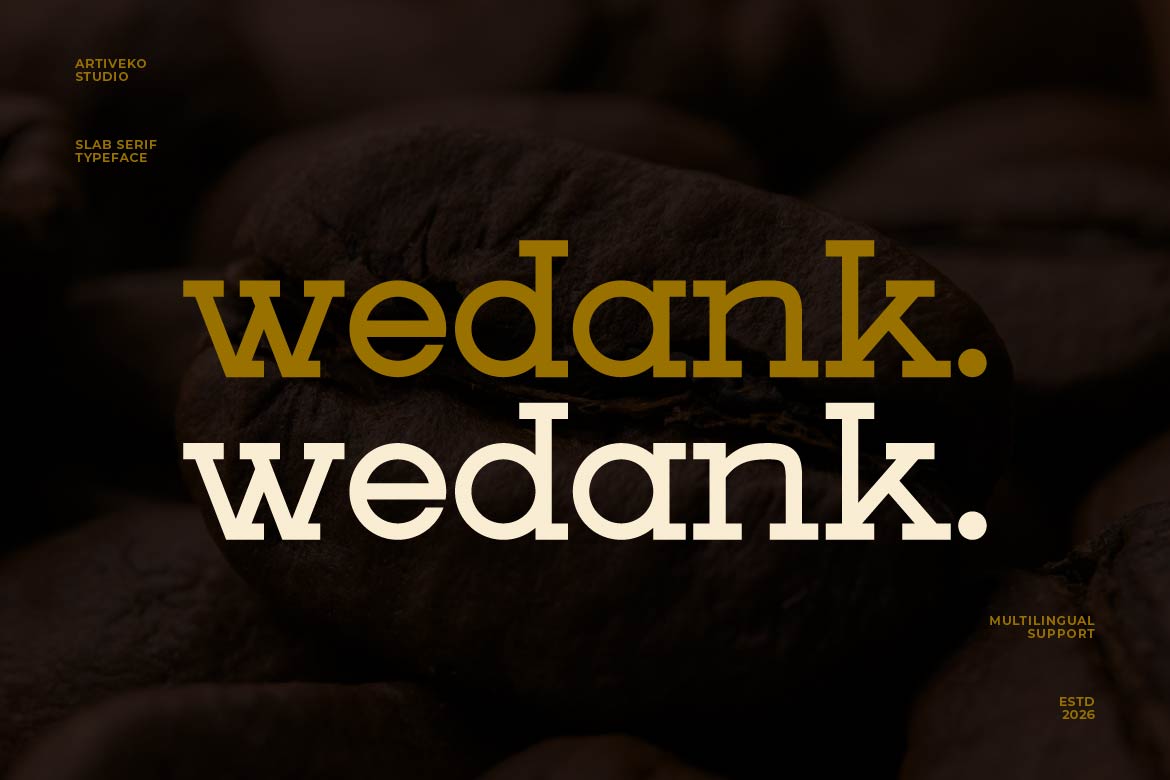
- Wedank – Contemporary Slab Font for Bold & Elegant Projects
Wedank is a premium slab serif typeface that blends strength with refined elegance. Featuring solid slab serifs, balanced proportions, and carefully crafted letterforms, Wedank delivers a bold yet sophisticated presence in modern design.
Designed for branding, logos, packaging, editorial layouts, and high-end visual identity, Wedank offers a unique combination of stability and style. Its structured form provides a sense of confidence and reliability, while its refined details elevate the overall aesthetic into a premium look.
Perfect for businesses and creatives who want a strong typographic voice without losing elegance, Wedank performs beautifully across both print and digital applications.
Wedank is not just a font — it’s a balance of power, class, and modern sophistication.